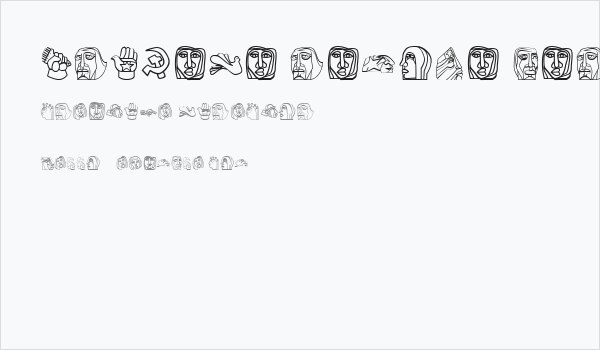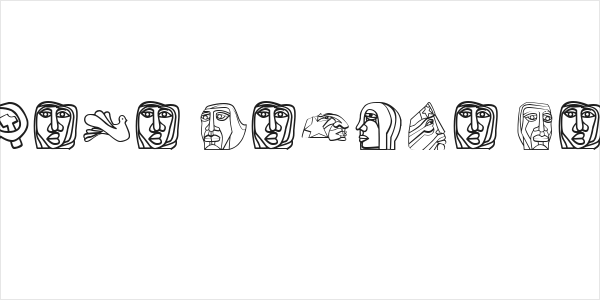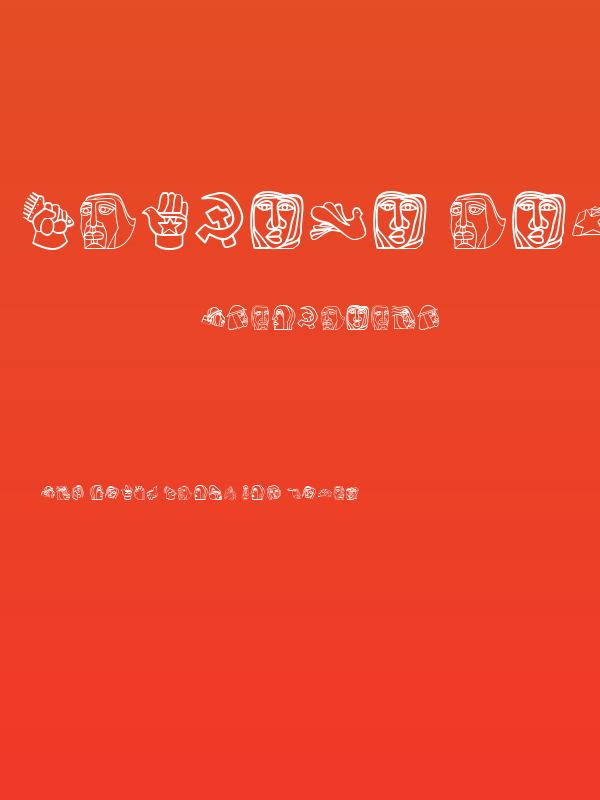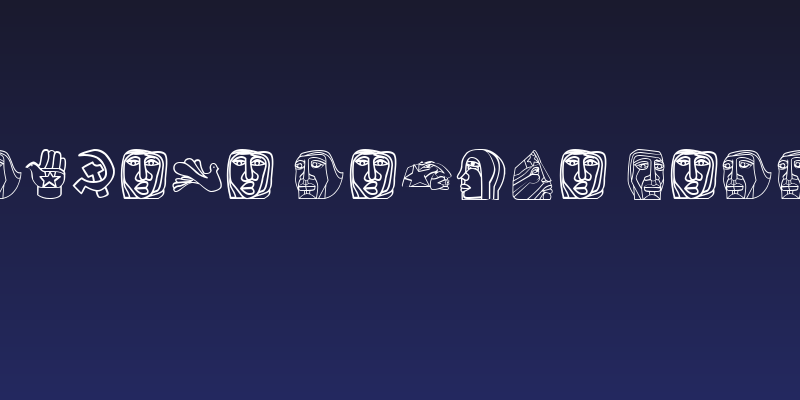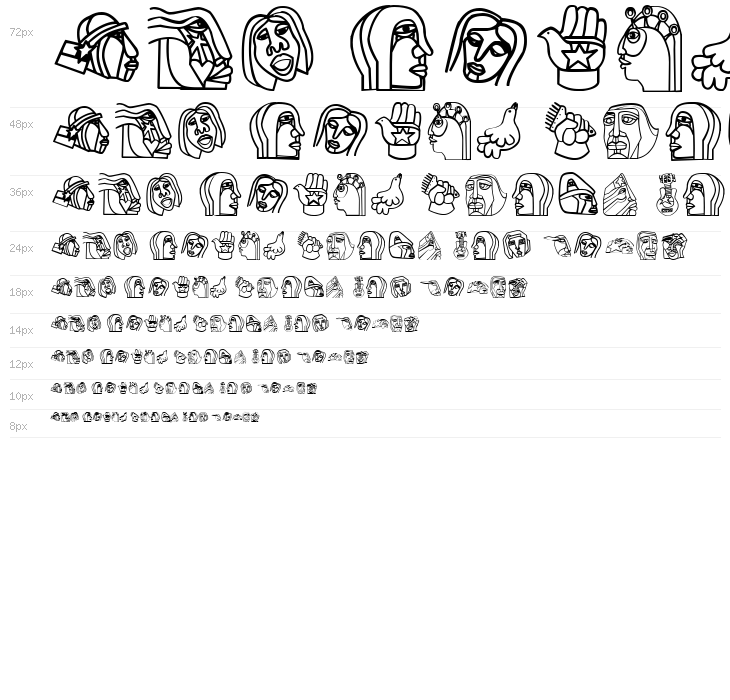
BRIGADA RAMONA PARRA Font
BRIGADA RAMONA PARRA Description
This font is a unique collection of pictorial symbols, each representing a distinct artistic expression. The characters are composed of intricate line drawings that depict faces, hands, and various abstract shapes. Each symbol is detailed and carries a sense of movement and emotion, reminiscent of mural art. The style is bold and expressive, capturing attention with its dynamic and illustrative nature. The symbols are not traditional alphanumeric characters but rather artistic representations that convey a narrative or theme. This font is ideal for projects that require a strong visual impact and a creative, unconventional approach.
| Overall Style | Artistic, Expressive |
| Use Case | Logos, Posters, Artistic Displays |
| Proposed Projects | Ideal for art projects, posters, murals, and creative branding that require a strong visual narrative. |